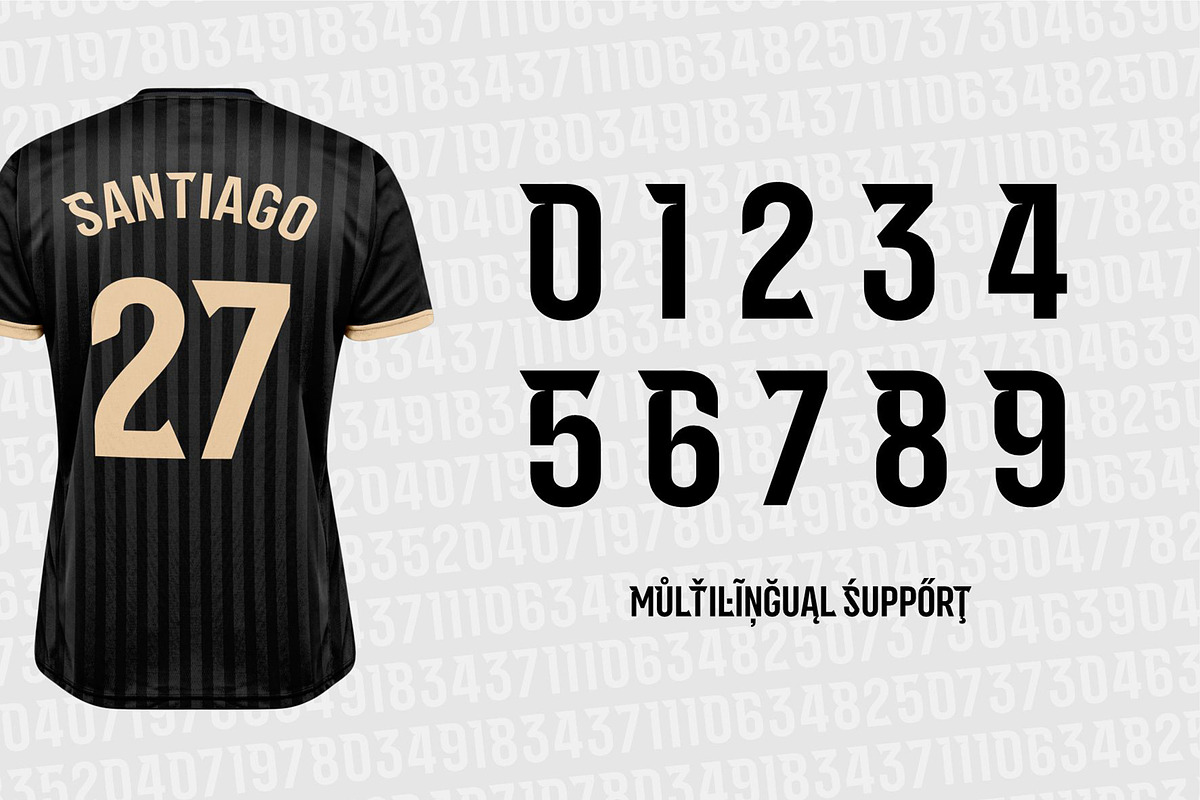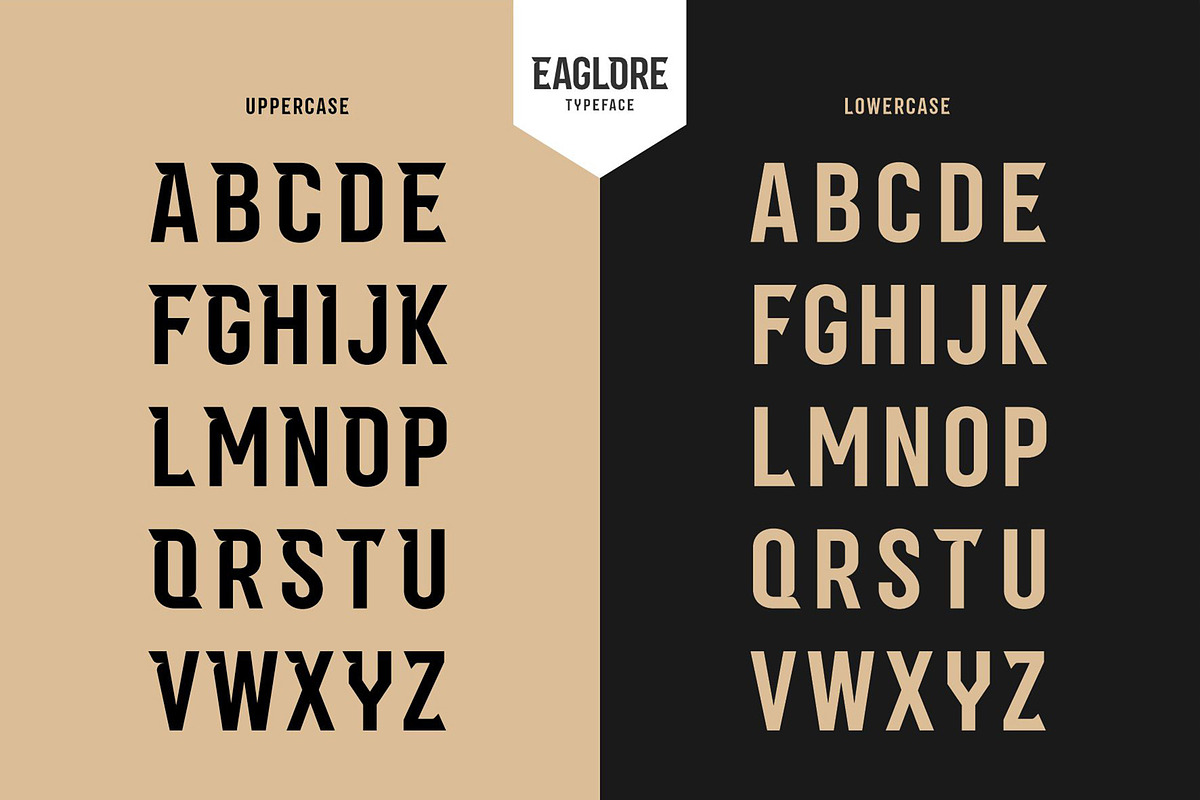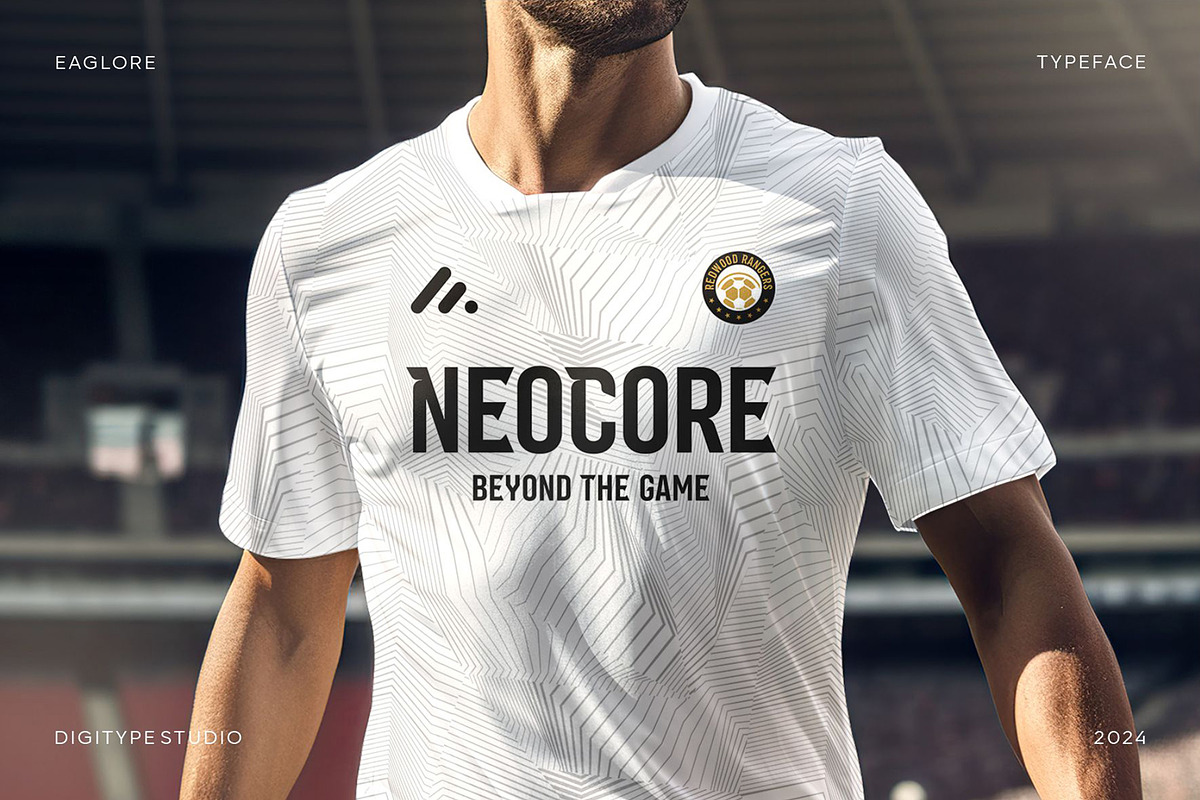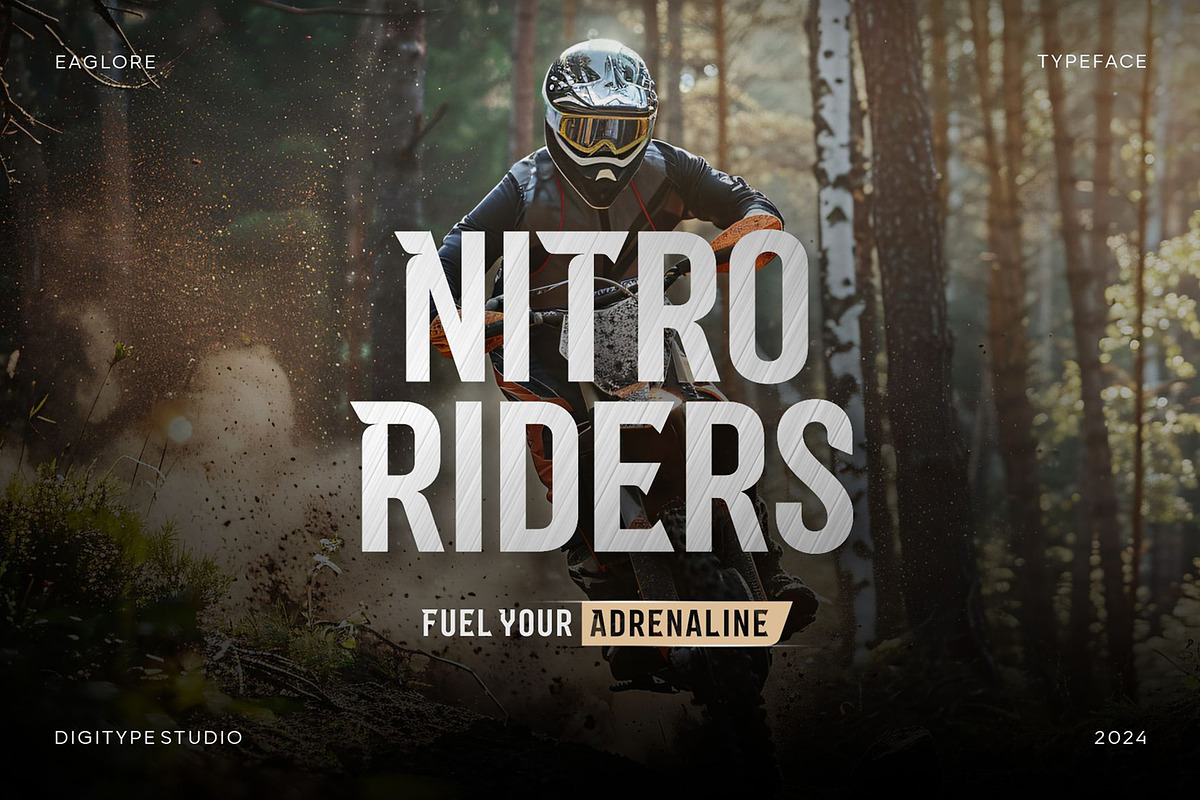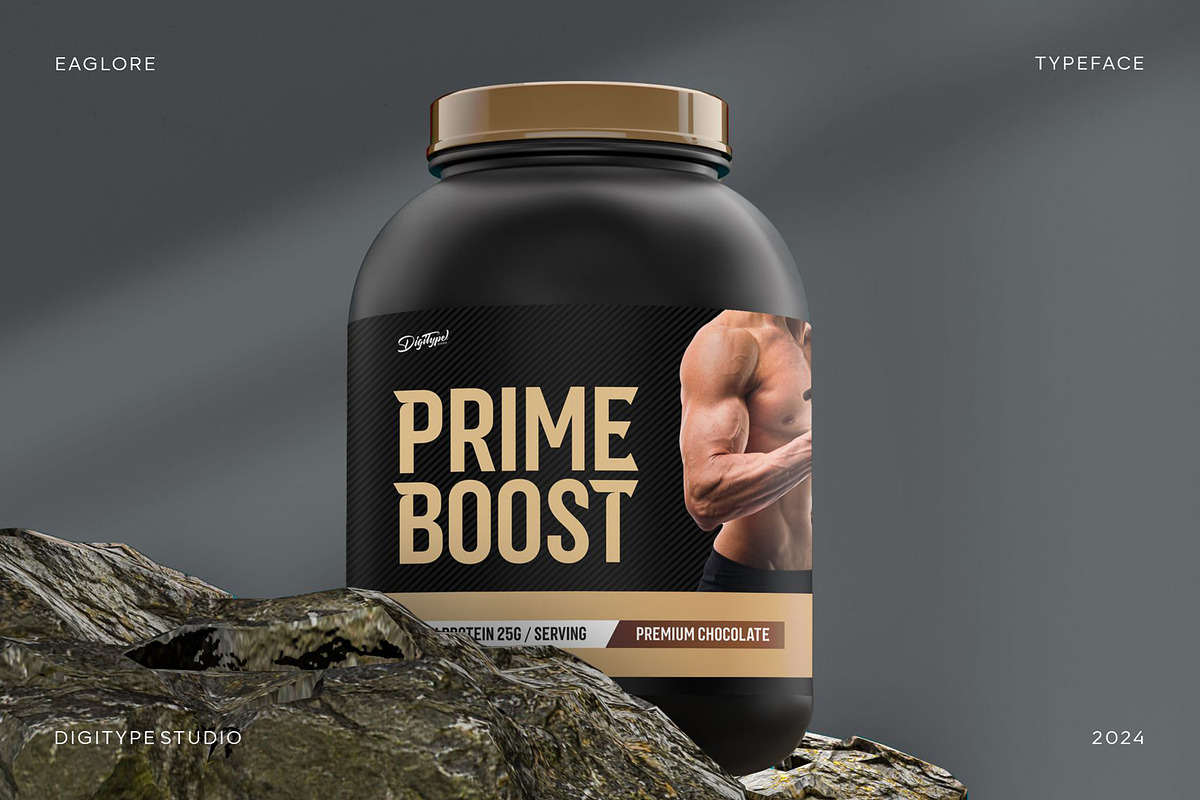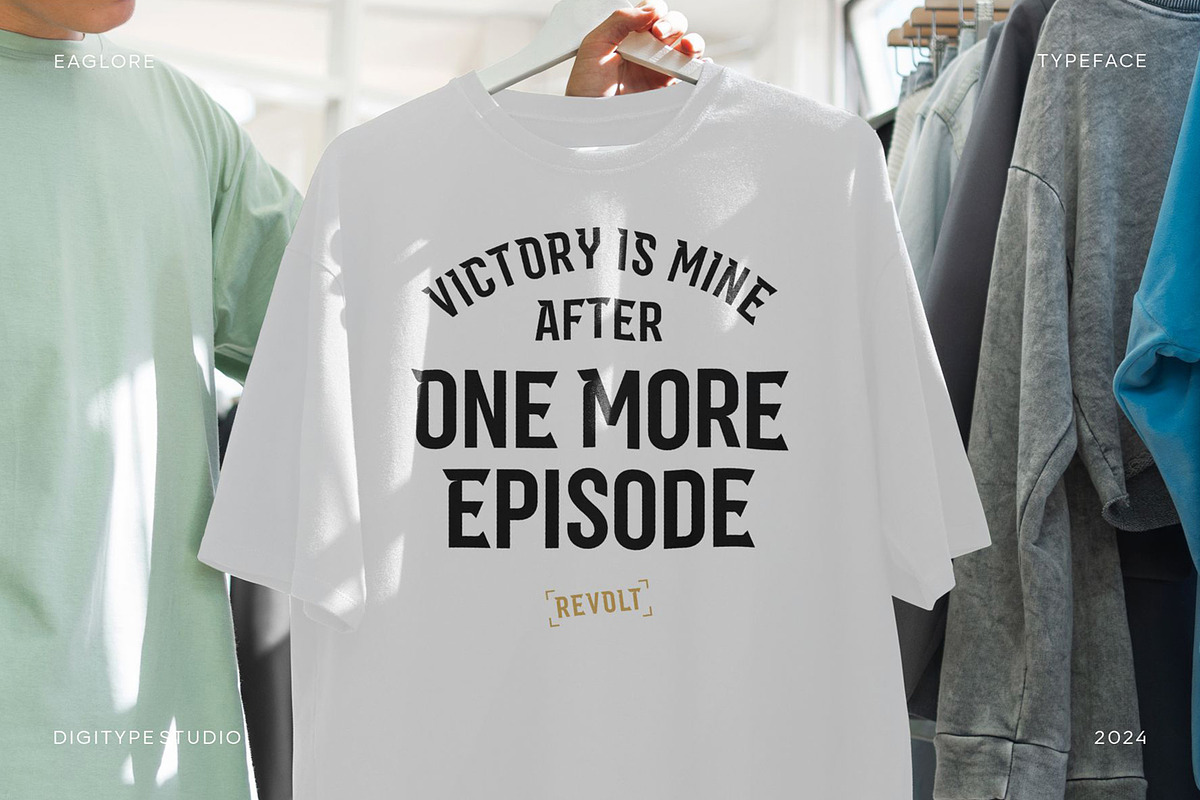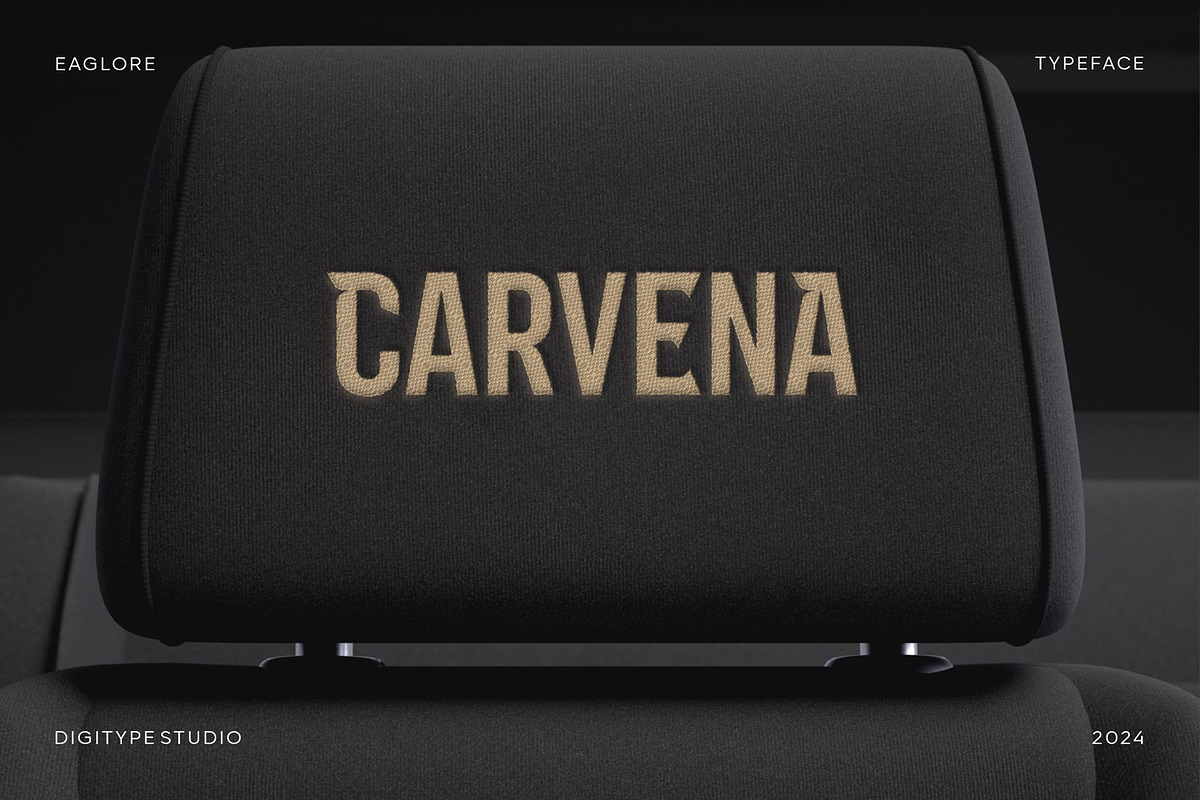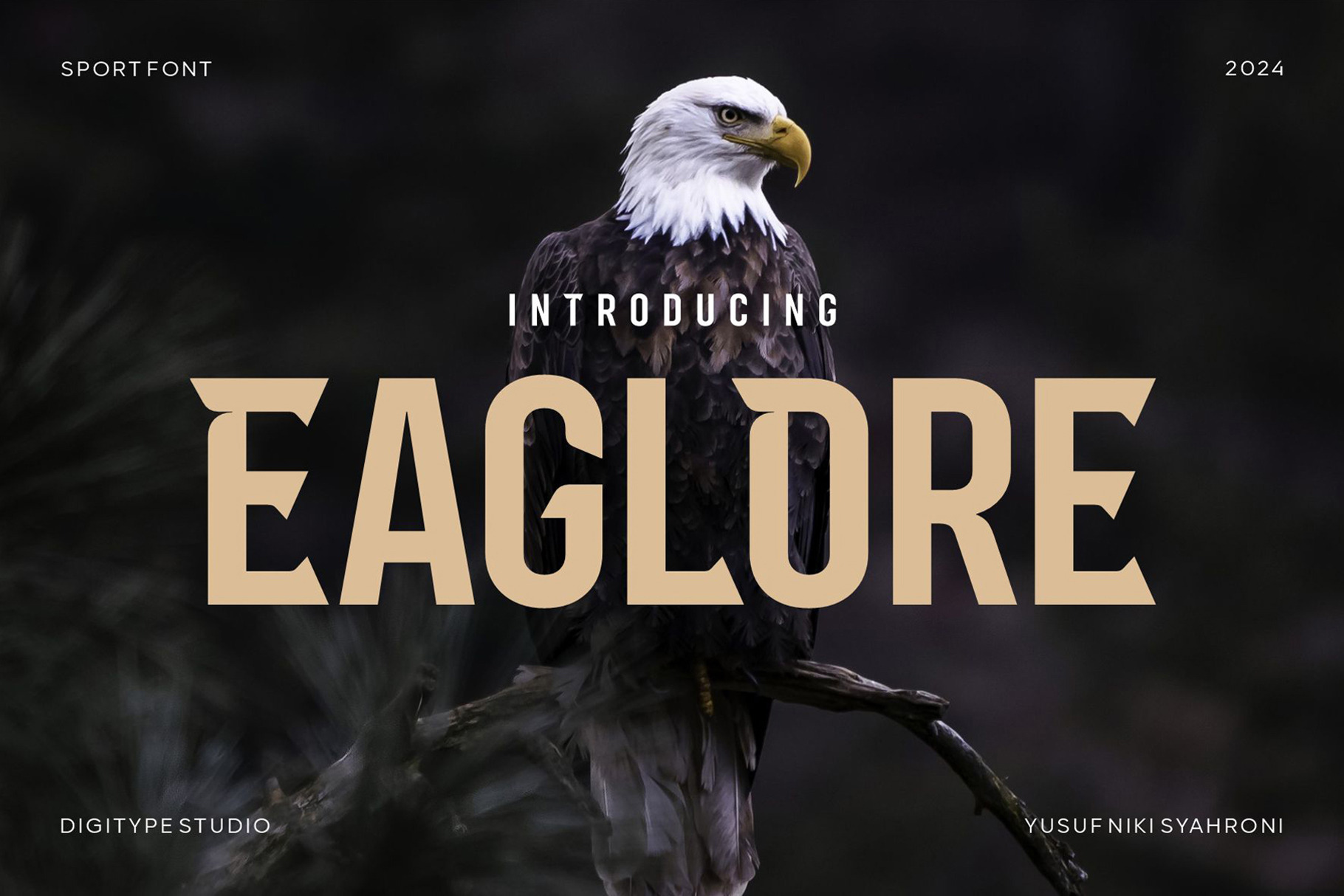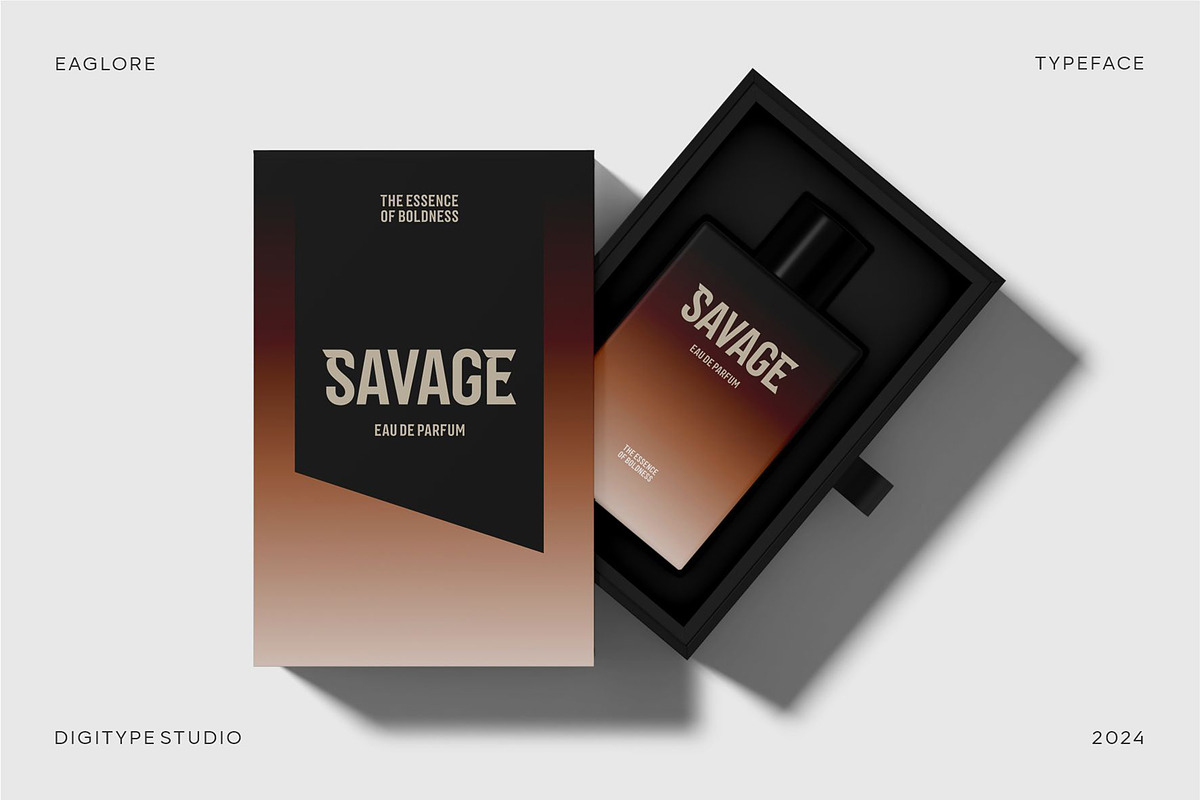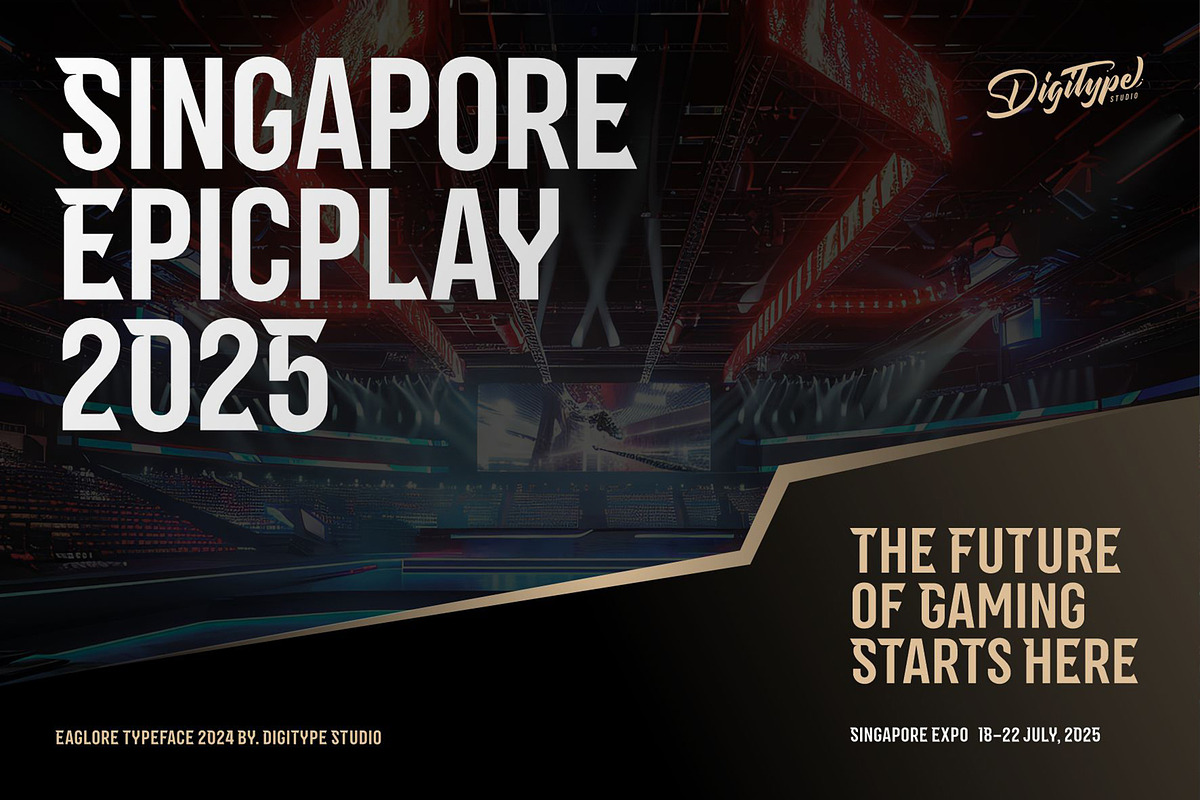
Eaglore Sport Font
Eaglore is a sans-serif font that seamlessly blends futuristic elements with classic design. Featuring bold lines and sharp angles inspired by the beak and elegance of an eagle, this typeface exudes a strong and distinctive character.
Every detail is carefully crafted to convey a masculine and modern impression, making it an excellent choice for branding projects in sports, technology, and entertainment. Its geometric structure and bold aesthetics make it perfect for logos, posters, and design applications with dynamic and futuristic themes.